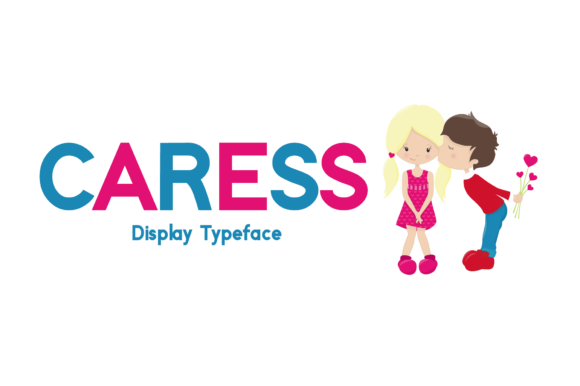
Designing with Elegance: Unveiling the Caress Font
Have you ever found yourself lost in a sea of design possibilities, searching for that perfect font to elevate your project? You know, that moment when you finally stumble upon the perfect combination of style and sophistication, and you can’t wait to bring your vision to life? For designers, that moment is often elusive, but it’s exactly what the Caress Font promises to deliver.
The Caress Font is an elegant display font designed to add a touch of sophistication to any project. Whether it’s a logo, a website header, or a flyer, this font is perfectly suited for a wide range of applications, from stationery to print design. What makes the Caress Font truly valuable is its versatility and adaptability, allowing designers to create unique and captivating visual experiences.
Key Features of Caress Font
- Font Family: Caress Font is a sans-serif font family designed to provide a clean and elegant look.
- Font Size: The font family includes multiple weights, ranging from Thin (100) to Bold (900), providing flexibility for various design applications.
- Unique Characteristics: Caress Font features a unique blend of modern and elegant design elements, including rounded edges and subtle curves, making it ideal for creating sophisticated and professional-looking designs.
- Language Support: Caress Font supports multiple languages, including Latin, Cyrillic, and Greek scripts, allowing for global design applications.
Designer Review: Caress Font
Overall, I’d say the Caress Font is a beautiful addition to any design project. Here are a few things I think work well:
- ✨ Elegant lines and curves that give it a soft, feminine touch.
- ✨ A wide range of weights and styles, making it versatile for different design needs.
- ✨ Excellent legibility, even at smaller font sizes.
However, I do have some concerns about its limitations:
- ⚠️ The font might be too ornate for certain design projects, such as those requiring a more minimalist approach.
- ⚠️ Some characters may not render correctly in certain environments, such as older operating systems or low-resolution displays.
- ⚠️ Limited language support, which might be a problem for designers working with non-English scripts.
Overall, I think the Caress Font is a lovely choice for design projects that call for a touch of elegance and sophistication. While it may have some limitations, it’s definitely worth considering for the right project. With some careful planning and attention to detail, I think it can add a beautiful, refined touch to your designs.